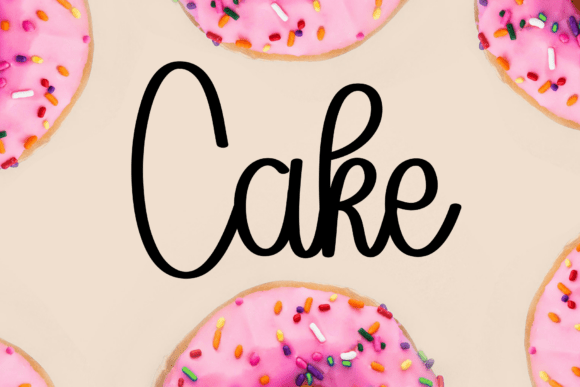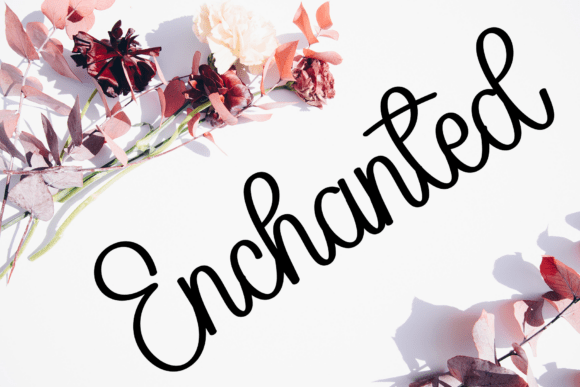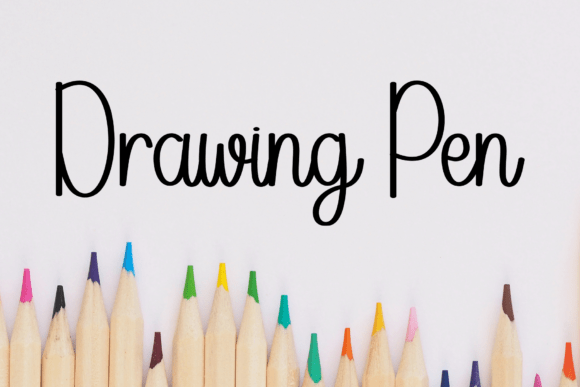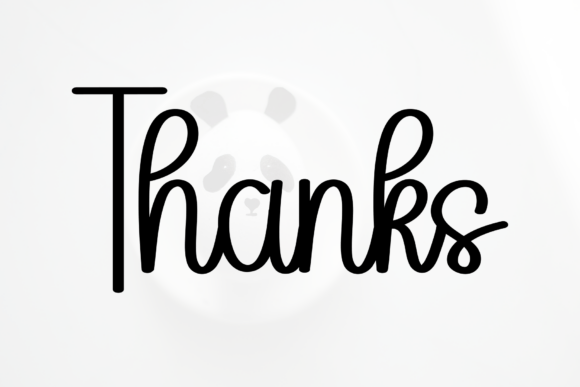
Unleash the Charm of Babyday Font
Have you ever been brainstorming for a design project and suddenly, out of nowhere, a spark of creativity hits you? It’s like a rush of adrenaline, and you know exactly what you want to create. For designers, this moment is pure bliss. And for those who are looking for the perfect font to elevate their designs, we’ve got just the thing – the Babyday Font.
This charming handwritten font is reminiscent of being drawn with a marker, giving it a relaxed and sporty feel that’s perfect for a variety of design projects. From branding and logos to wedding supplies, greeting cards, and fashion lookbooks, Babyday Font is the ultimate choice for designers who want to add a touch of luxury and elegance to their designs while still maintaining a casual vibe.
Babyday Font Key Features
- Unique Characteristics: Designed with a playful, handwritten feel, perfect for children’s products, baby-related designs, and educational materials
Designer Review: Babyday Font
Overall, I’m quite impressed with Babyday Font, a lovely, handwritten font that’s perfect for adding a touch of warmth to your designs. ✨
- The elegant, flowing lines that give the font its handwritten feel.
- The expressive, cursive style that’s ideal for titles and headings.
- The extensive character set, which includes a wide range of punctuation and symbols.
However, I do have a few concerns about Babyday Font’s limitations. ⚠️
- The font may not be suitable for small text sizes, as the letters can become difficult to read.
- The weight of the font is quite light, which may not provide enough contrast in some designs.
- The font doesn’t come with a bold or italic version, which may limit its versatility.
Overall, Babyday Font is a lovely addition to any designer’s toolkit. While it may have some limitations, its unique, handwritten style makes it a great choice for designers looking to add a touch of personality to their designs.
The Babyday Font is ideal for use in:
– Children’s product design
– Nursery decor
– Baby clothing labels
– Children’s book illustrations
– Advertisements targeting parents and children.
Tips for Getting the Most Out of Babyday Font
To get the most out of the Babyday Font, use it in combination with other playful and child-friendly design elements, such as illustrations, colors, and textures. Experiment with different font sizes and styles to create visual interest and hierarchy in your design.